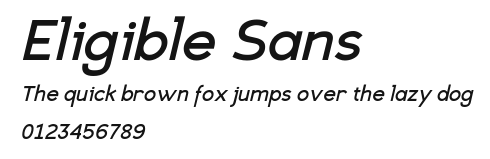
• Font Name: Eligible Sans
• Font Style: BoldItalic
• Full Font Name: Eligible Sans Bold Italic
• PostScript Name: EligibleSans-BoldItalic
Eligible Sans.ttf is a modern, elegant sans-serif font designed for ultimate readability and visual harmony. Perfect for branding, headlines, web design, and print materials.